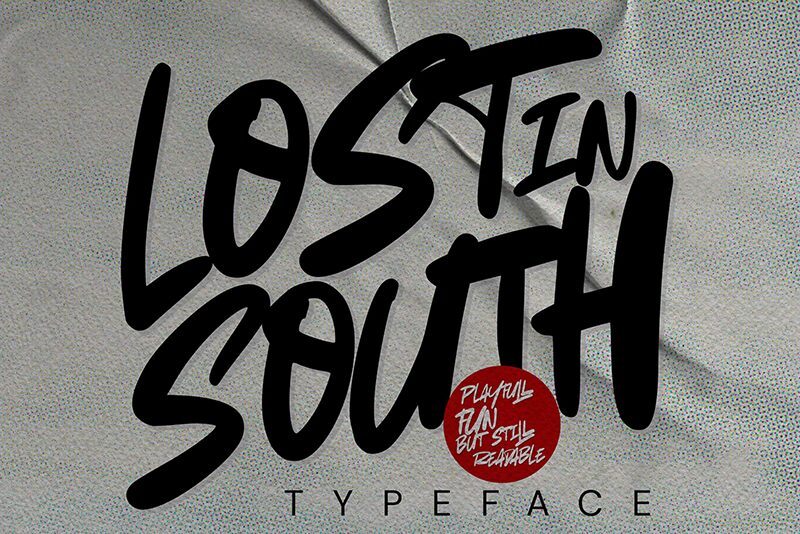
Lost in South, a bold marker-style font designed by Anang Fibriyanto of Cornertype Studio Indonesia, is perfect for adding a unique vibrancy to your projects. This handwritten font is suitable for logos, social media posts, and posters that need an extra creative touch.